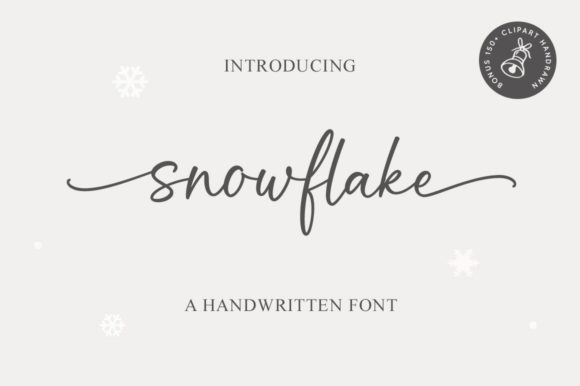
Are you looking to add a touch of elegance and sophistication to your designs? Look no further than Snowflake Font, a stunning script font created by Graphix Line Studio.
With its thin lettering and graceful curves, Snowflake Font is the perfect choice for any project that requires a trendy and stylish look. Whether you're designing a wedding invitation, creating a logo, or crafting a social media post, this font will elevate your creations and make them stand out from the crowd.
One of the key features of Snowflake Font is its PUA encoding. This means that you can access all of the glyphs and swashes with ease, allowing you to add a personal touch to your designs and truly make them your own. Whether you want to add a flourish to a letter or create a custom ligature, Snowflake Font gives you the flexibility and freedom to do it all.
But Snowflake Font isn't just about functionality – it's also about emotion. When you use this font, you'll feel inspired and empowered. You'll feel like you're creating something truly special, something that reflects your unique vision and style. And when you share your creations with others, they'll feel that same sense of wonder and delight.